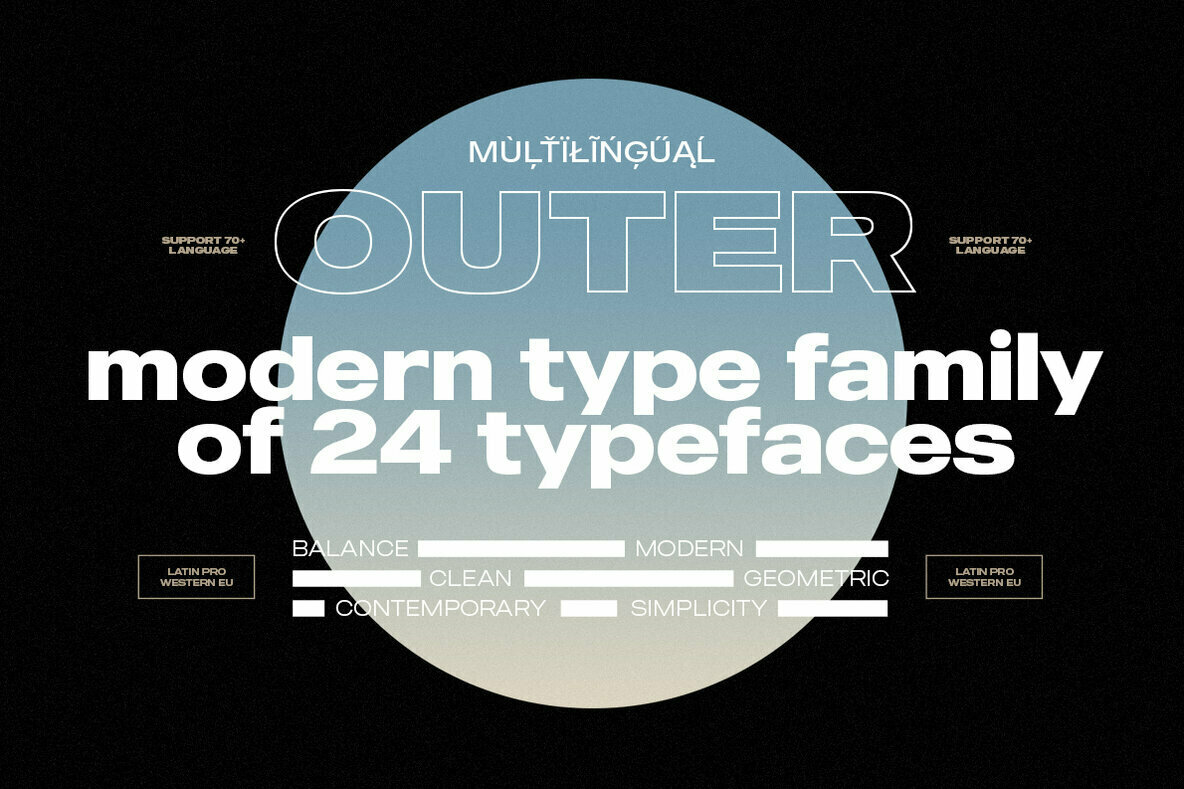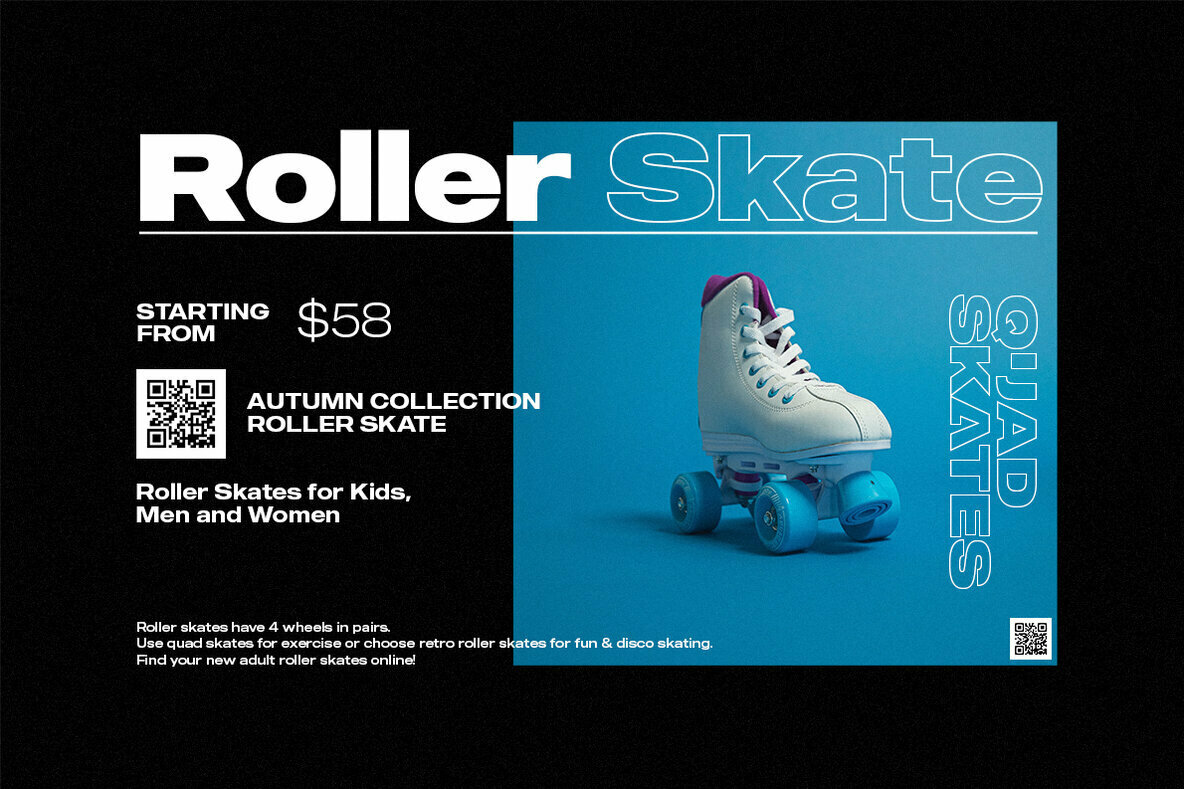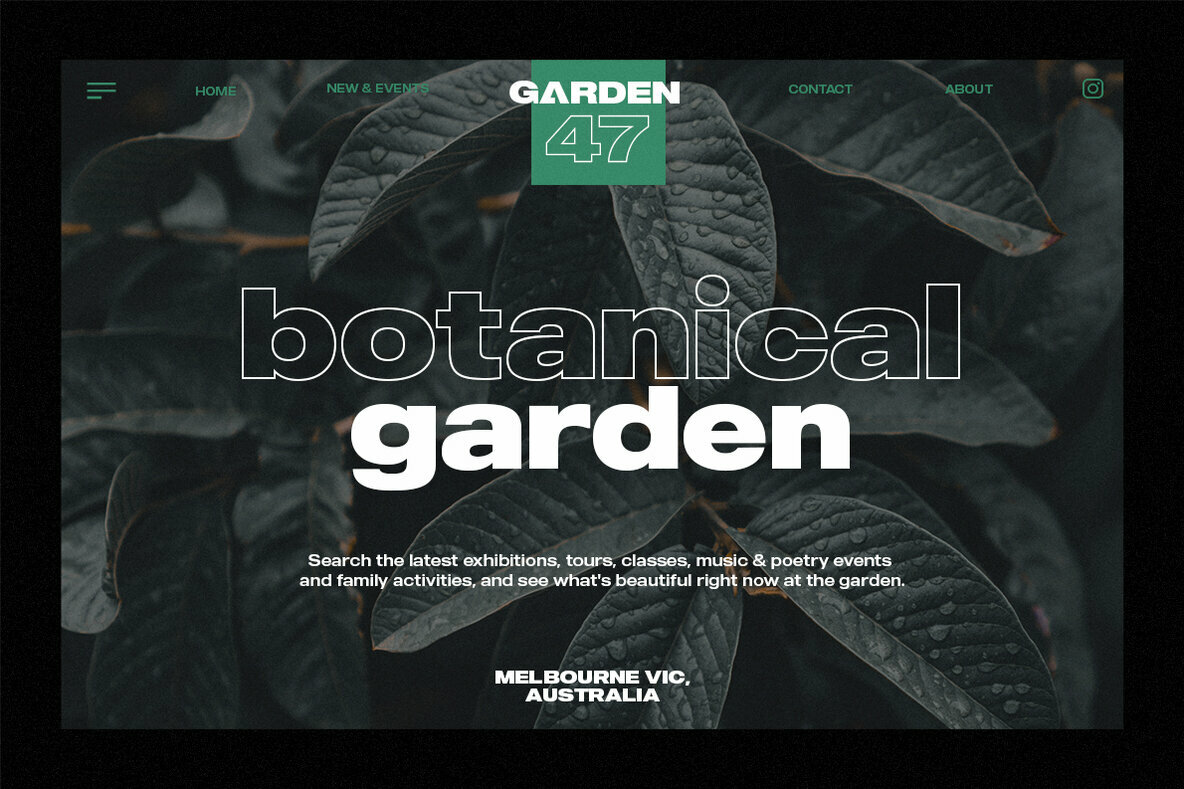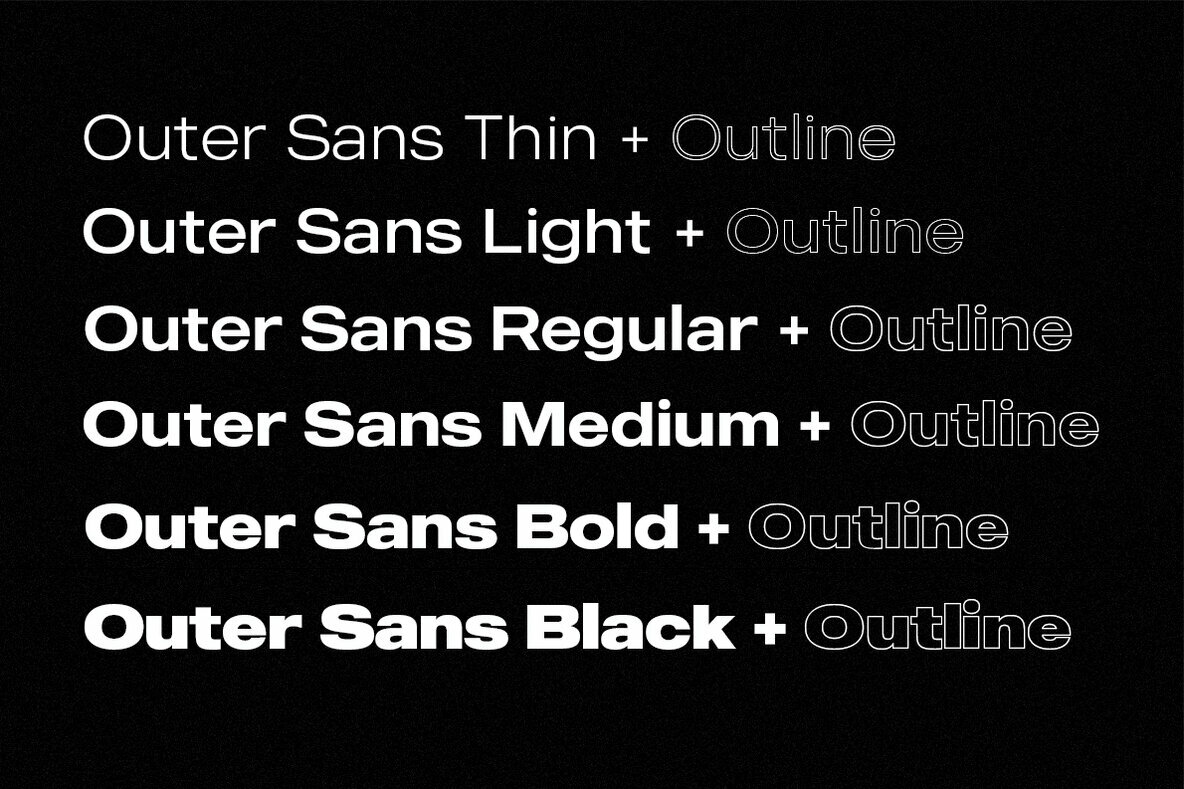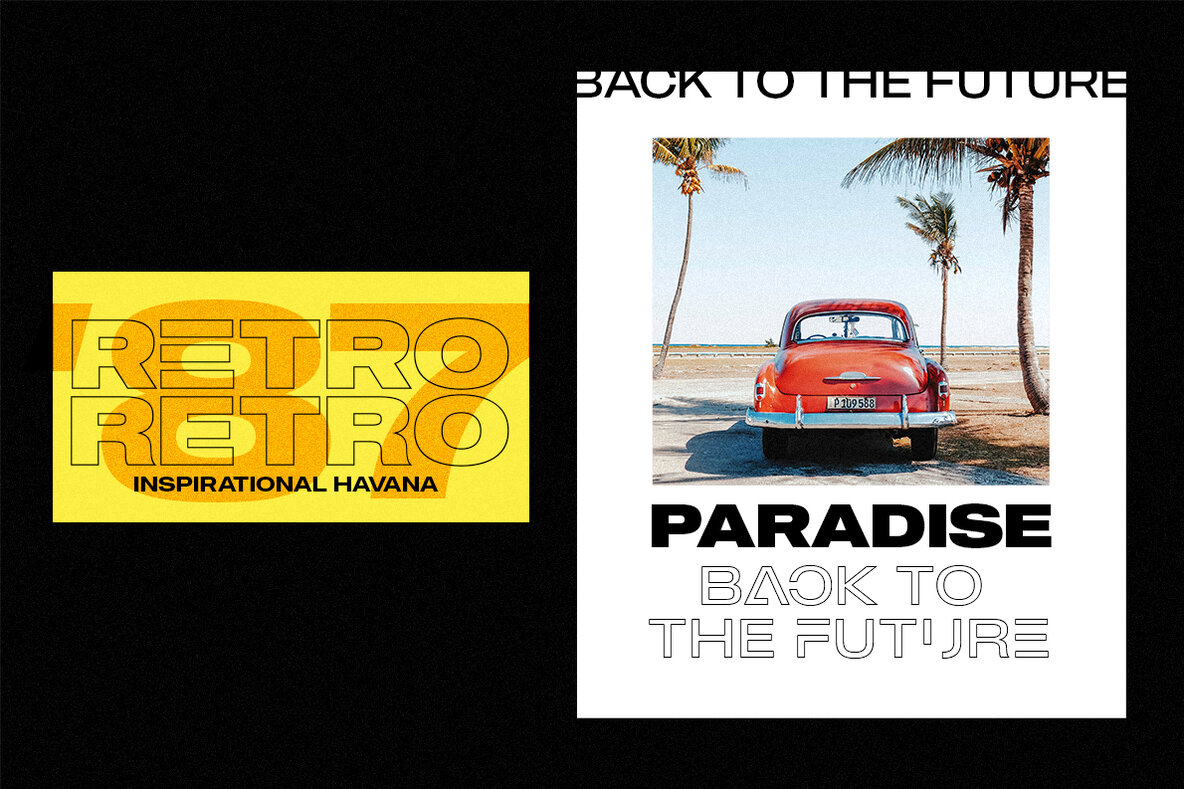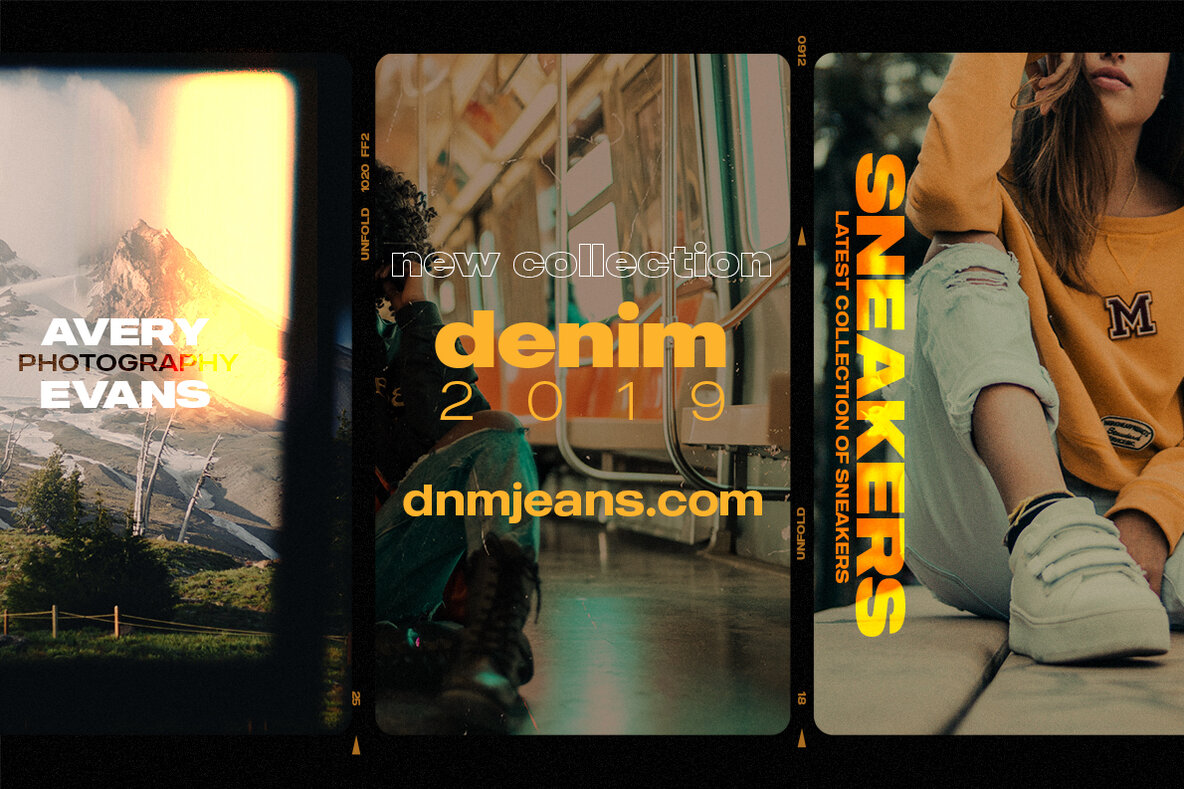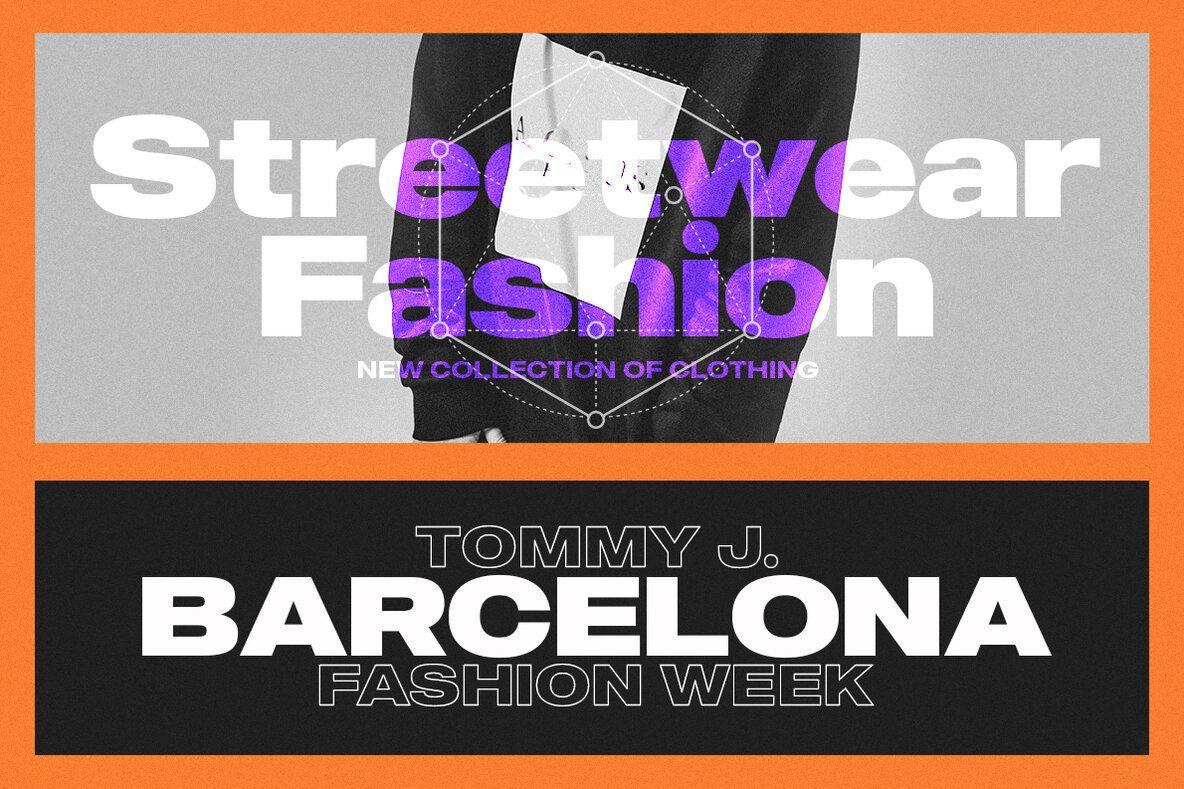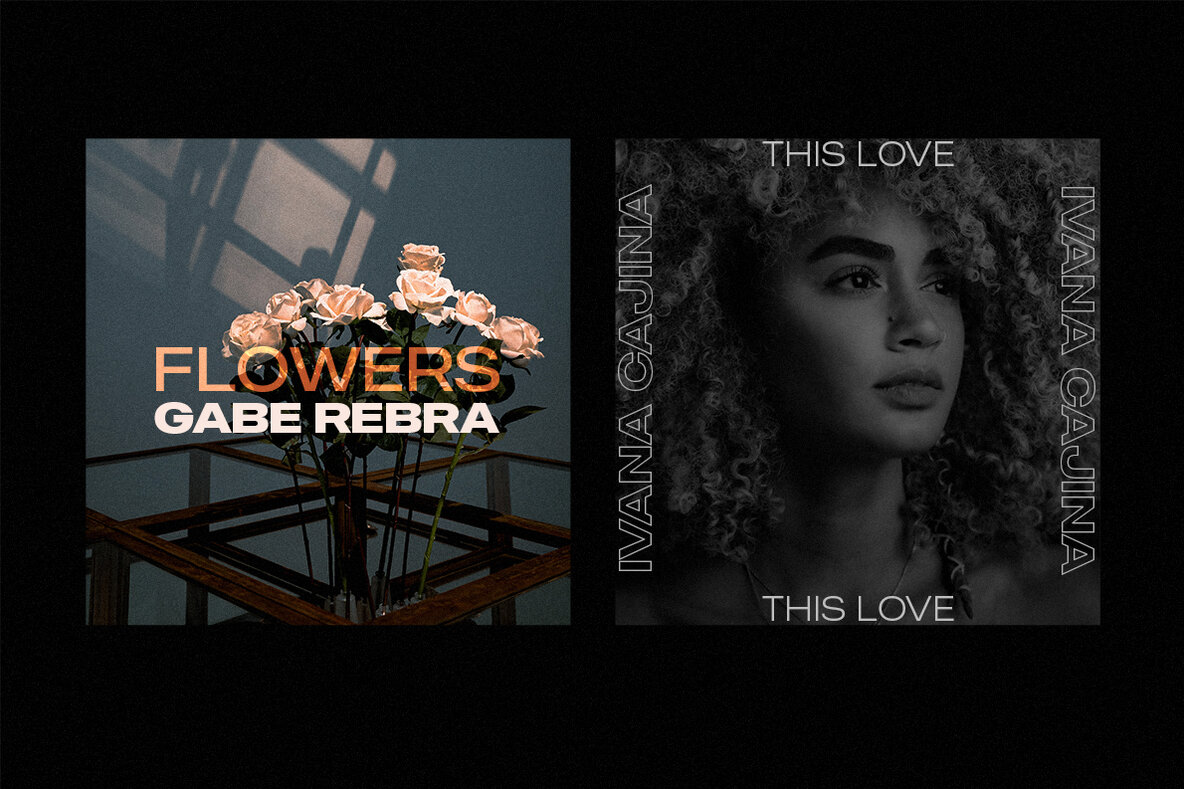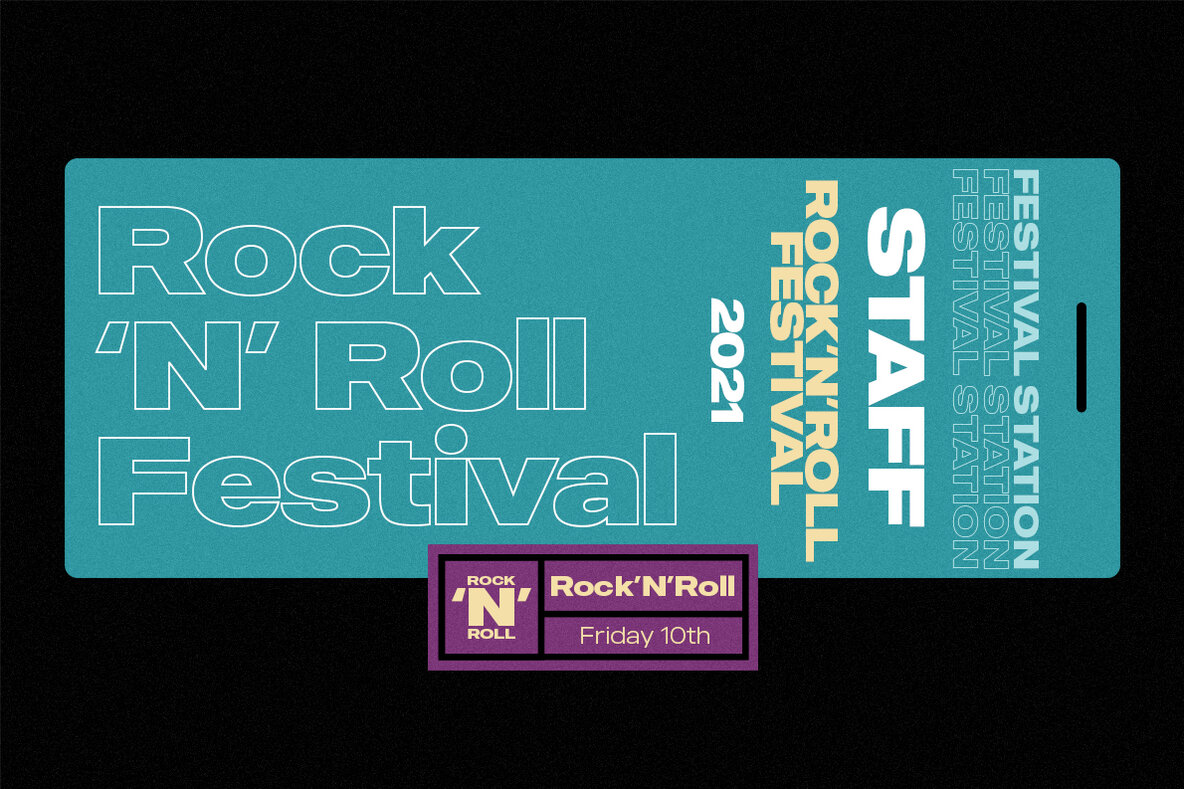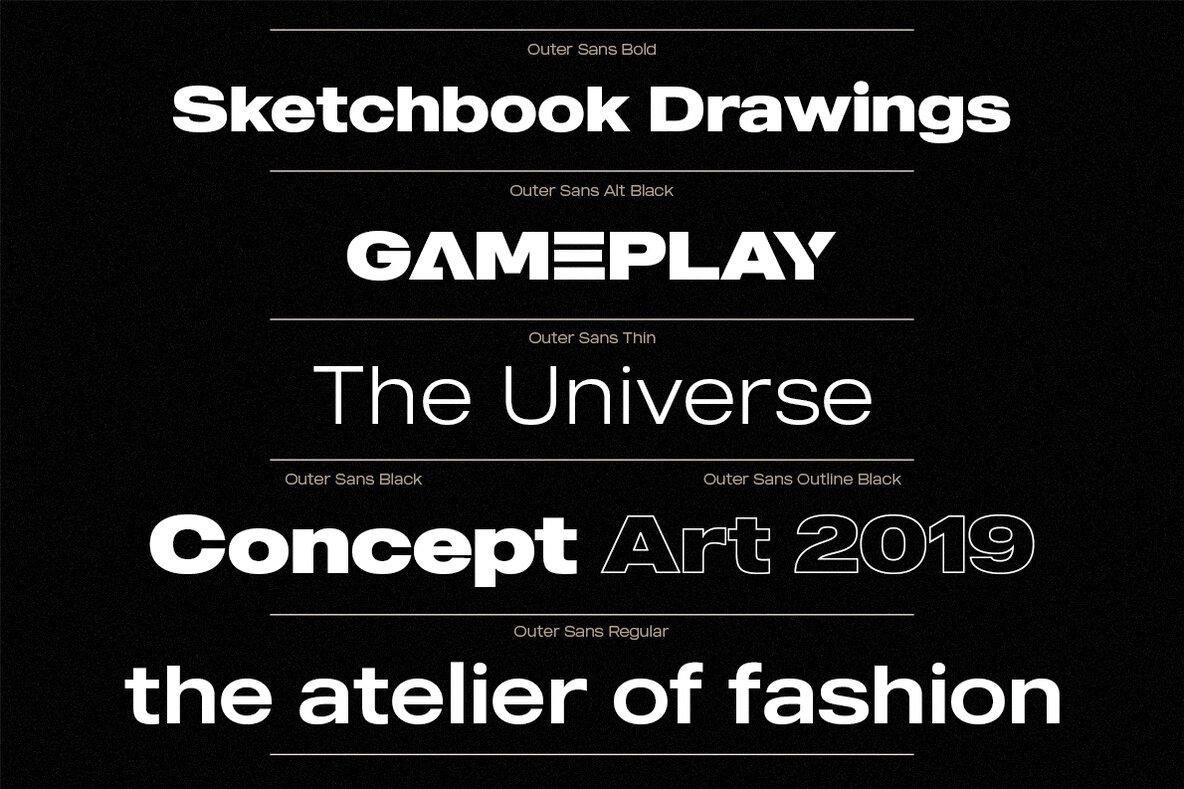
MADE Outer Sans: A Modern Typeface Family
MADE Outer Sans is a comprehensive type family featuring 24 distinct styles, expertly designed to cater to the needs of various creative projects. This modern sans-serif collection is particularly well-suited for graphic designers in pursuit of versatility and finesse.
Features:
• Offers 24 unique typefaces
• Designed for versatility across diverse media
Whether you are crafting an elegant invitation or a captivating magazine cover, MADE Outer Sans provides the flexibility and style you require. Embrace it for music covers, cinema posters, logos, branding elements, and beyond, ensuring your design stands out prominently.